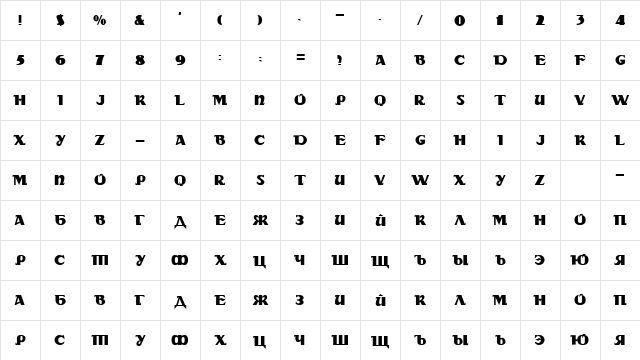
DS Rada Medium Free Font
DS Rada Medium
Designer: Dubina Nikolay
Design Context for DS Rada
DS Rada is a composed and adaptable typeface that performs quietly and consistently across a wide range of design contexts.